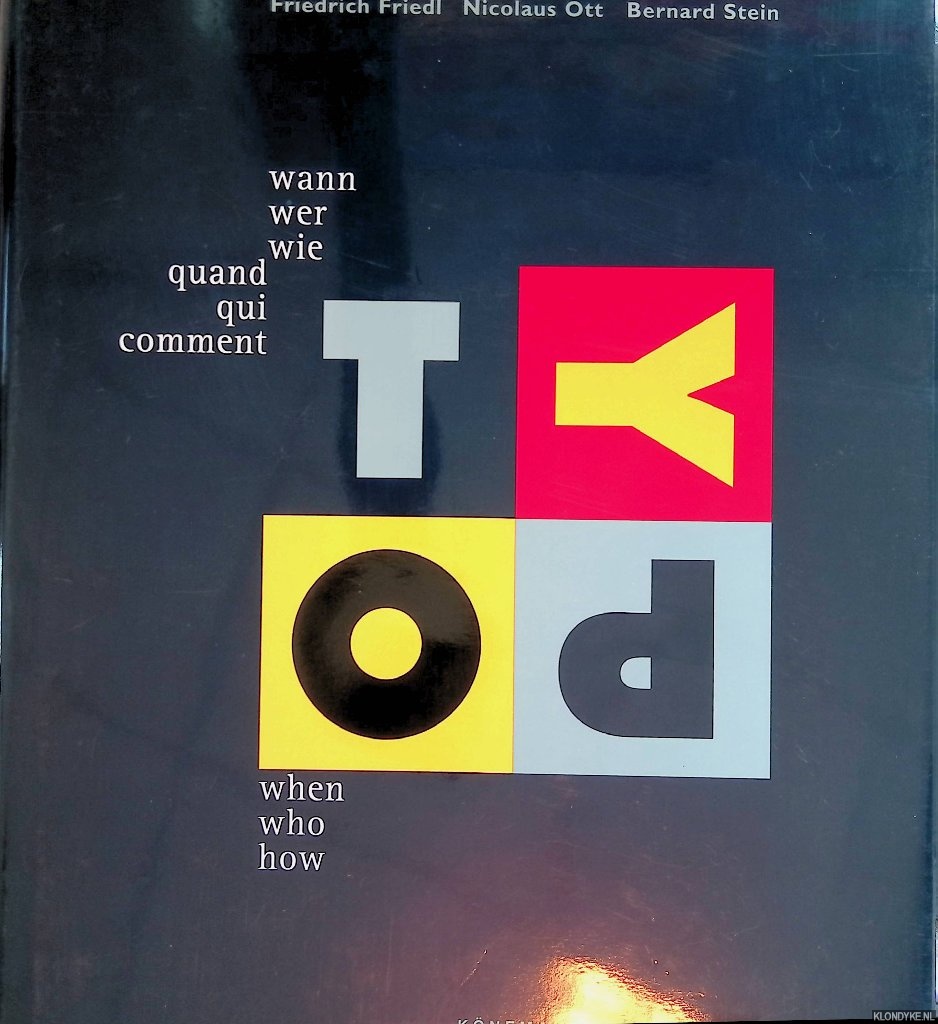
Typography: when, who, how = Typographie: wann, were, wie = Typographie: quand, qui, comment
Samenvatting | An Encyclopedic Survey of Type Design and Techniques Throughout History. The most detailed and comprehensive survey and history of typography and alphabets ever undertaken, packed with 2,000 illustrations. |